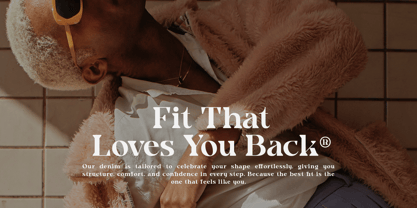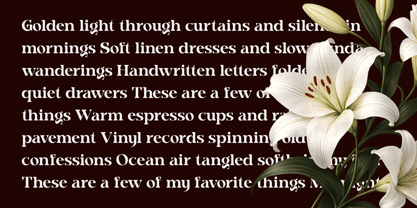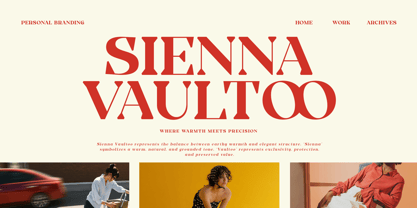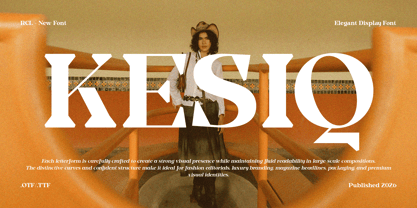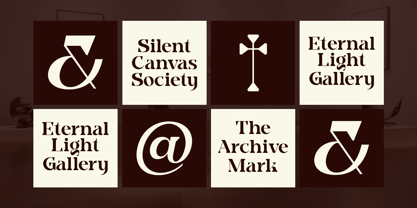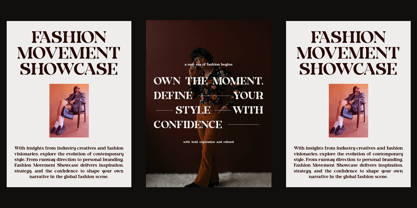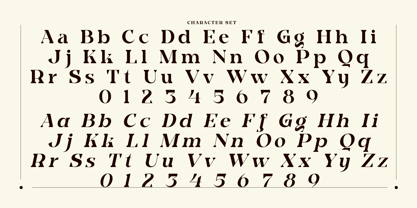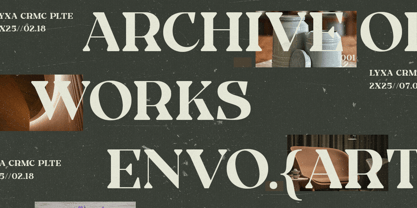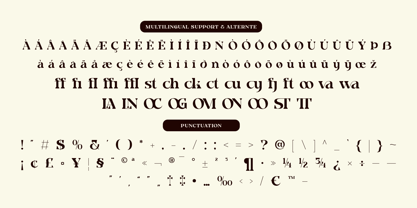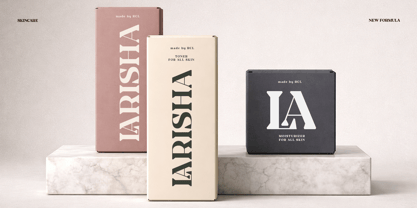
Kesiq
The Kesiq Font Family was designed by Bakhrudin Ja'far and published by Jafar07. Kesiq contains 2 styles and family package options. More about this family
Kesiq is a modern high-contrast serif display font designed to create powerful visual impact. Its sculpted curves, confident structure, and refined proportions make it ideal for luxury branding, magazine headlines, fashion editorials, and premium packaging. Carefully spaced and professionally kerned, Kesiq delivers elegance without sacrificing readability in large-scale compositions. Features: Regular and Oblique Modern high-contrast serif design Uppercase & lowercase Multilingual support Professional kerning Perfect For : Luxury branding, fashion editorials, magazine headlines, logo design, packaging, premium visual identities, and high-end digital campaigns.